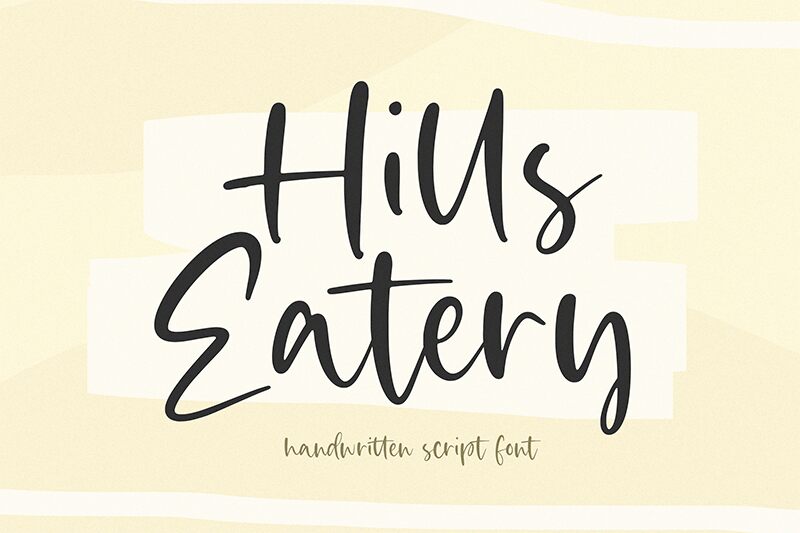
Hills Eatery
Hills Eatery, a creation by Timur Type, brings the warmth and authenticity of handwritten communication to the digital canvas. This semi-light font captures the essence of personal touch with its fluid, organic strokes and slightly varied line weights, exuding a casual yet sophisticated charm. Each character is crafted with a deliberate imperfection that mirrors the natural variations found in human handwriting.
The aesthetic appeal of Hills Eatery lies in its ability to evoke comfort and familiarity while maintaining an air of elegance. The font's style is versatile enough to enhance a variety of creative projects—its approachable demeanor makes it perfect for branding materials for cafes, boutiques, or artisanal businesses seeking a down-to-earth vibe. It also lends itself beautifully to personalized invitations, greeting cards, and book covers where a touch of intimacy is desired.
Embrace the unique flair of Hills Eatery for projects that demand both visual interest and an inviting atmosphere.